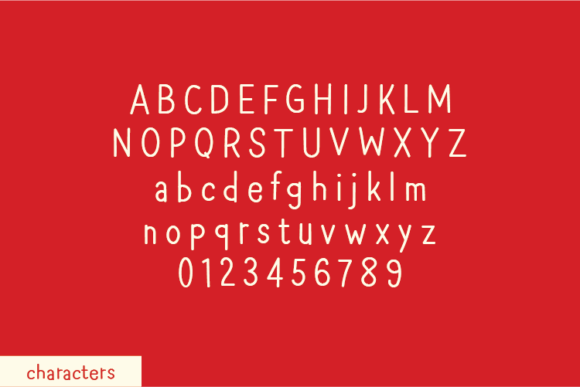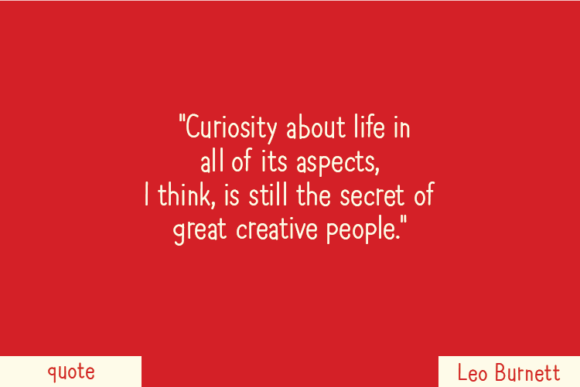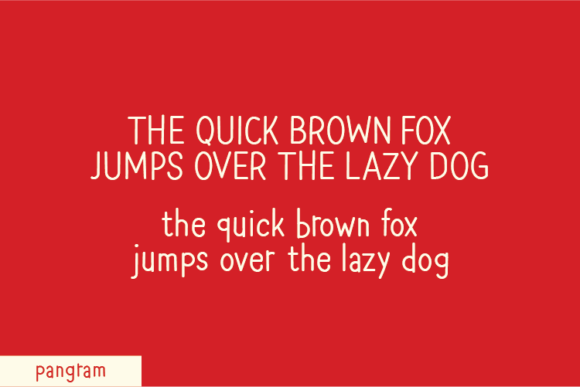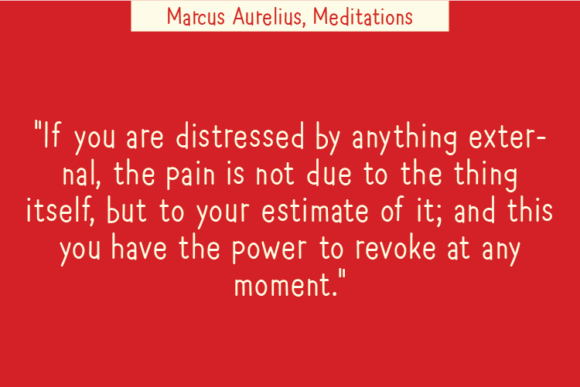
Anxious Font
About Anxious Font
Anxious Font Download is a unique handwritten typeface designed with complete authenticity. Unlike most fonts that are refined digitally, Anxious was created without changing a single node in each character’s indentation. This makes the strokes raw, natural, and strikingly real, which gives the font a special charm that designers appreciate. With its free-flowing style, it brings personality and character into every project.
Handwriting fonts are often used to express creativity, but what makes Anxious stand out is its originality. Each curve and line feels handcrafted, capturing the natural imperfections of real handwriting. This design choice ensures that Anxious looks authentic, making it perfect for both casual and professional creative use.
Key Features of Anxious Font
• Naturally handwritten strokes without digital modification
• Uppercase and lowercase characters
• Numbers, punctuation, and symbols included
• Supports multiple languages
• Legible at all sizes, from headlines to small text
Where to Use Anxious Font
The versatility of Anxious Font Download makes it a practical choice for countless design purposes. It adapts beautifully to modern digital projects as well as classic print materials. Here are a few popular uses:
• Quotes and Notes – Add a human touch to motivational quotes, personal journaling, or creative notes.
• Apparel and Merchandise – Perfect for T-shirt designs, hoodies, mugs, or tote bags that stand out.
• Invitations and Greeting Cards – Create wedding invites, thank-you notes, or seasonal cards with a personalized style.
• Logos and Branding – Ideal for lifestyle brands, creative agencies, or small businesses wanting an authentic look.
• Social Media Graphics – Bring originality to Instagram posts, Pinterest pins, or Facebook covers.
• Product Packaging – Suited for handmade goods, artisan products, or custom labels.
Why Choose Anxious Font?
Designers looking for a handwritten typeface that blends authenticity and flexibility will find exactly that in Anxious Font Download. Its raw, unaltered strokes make it unlike polished script fonts, giving projects a genuine and handcrafted aesthetic.
At the same time, it maintains excellent readability, which is crucial for design. Whether used on large billboards, small stationery, or digital screens, Anxious remains clear and stylish. The balance between originality and usability is what makes it stand out.
If you’re searching for a handwritten font that feels authentic, versatile, and creative, Anxious Font Download is an excellent choice. Its unique design process ensures every letter carries the natural feel of real handwriting, while its adaptability makes it suitable for a wide variety of projects.